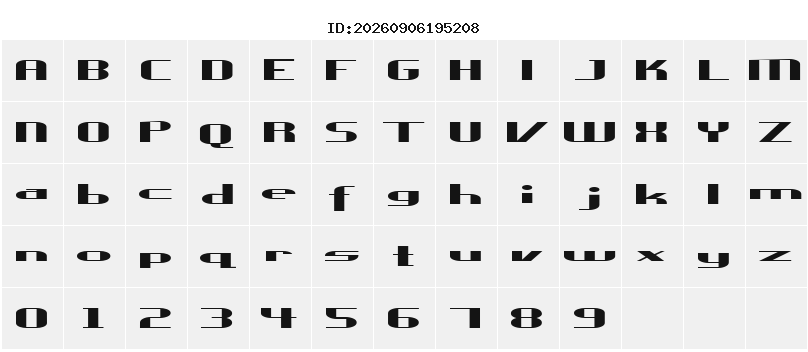
ureka Preview
• Font Name: ureka
About ureka.ttf
ureka.ttf is a modern, elegant sans-serif font designed for ultimate readability and visual harmony. Perfect for branding, headlines, web design, and print materials.